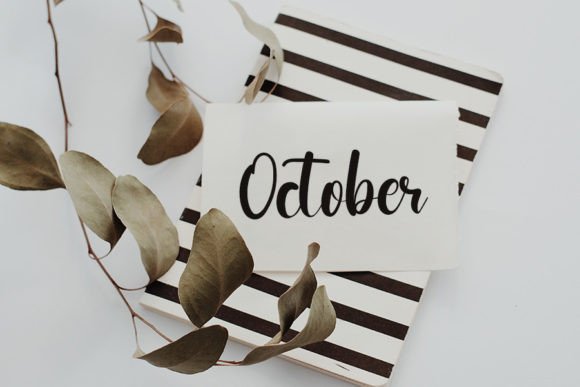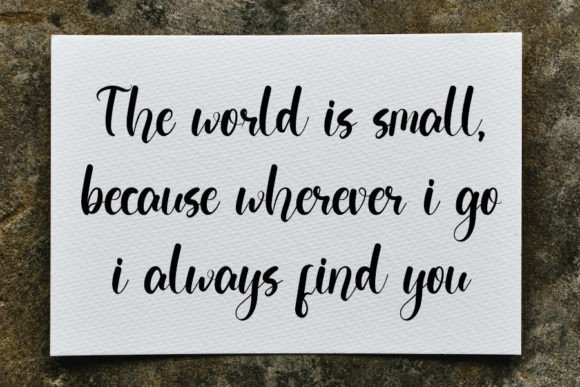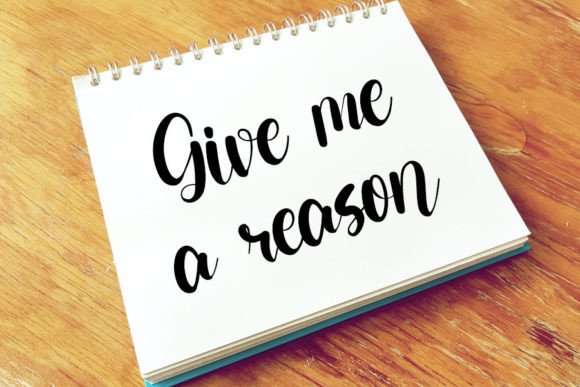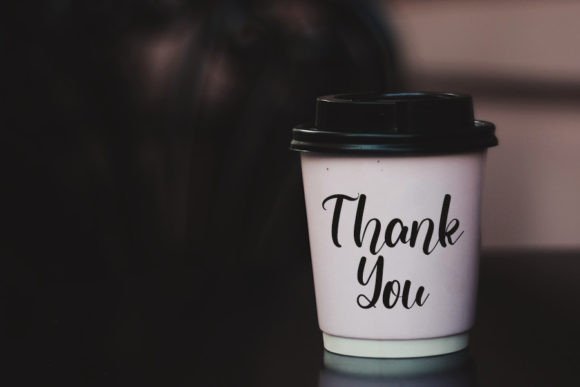
Introduction to Holla October Font
Holla October is a neat and beautiful handwritten font described by an elegant touch, perfect for your favorite projects.
Fall in love with its incredibly distinct and timeless style, and use it to create spectacular designs .
Key Features of Holla October Font
Why Choose Holla October Font?
Holla October Font offers exceptional quality and versatility, making it a valuable addition to your design toolkit. Whether you’re creating for personal projects or commercial use, Holla October Font delivers professional results.